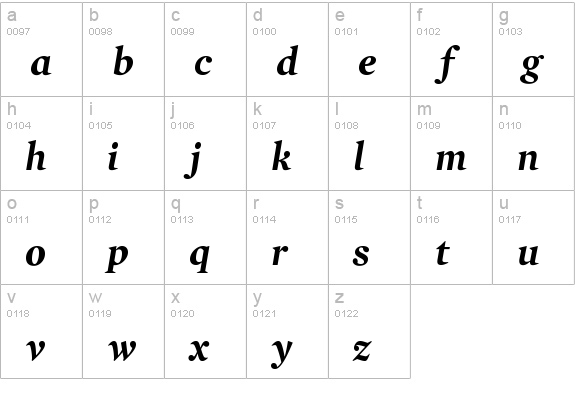
Mercury Display Bold Italic Font Details
Mercury Display Bold Italic is a strong, high-contrast, italic variant in the Mercury typeface family \xE2\x80\x94 well suited to headlines, attention-grabbing titles, and strong calls-to-action.
Mercury Display Bold Italic font is a striking and sophisticated typeface that exudes elegance and modernity. Its bold and italic design adds a touch of flair and style to any project, making it perfect for headlines, titles, and branding materials. The sharp angles and clean lines of this font give it a sleek and professional look that is sure to make a statement. And the best part? Mercury Display Bold Italic font is **free** to download at FontsMarket.com! Whether you're a designer looking to add a touch of class to your designs or a business owner in need of a fresh and contemporary font for your marketing materials, Mercury Display Bold Italic font is the perfect choice. Download it today and elevate your projects with this stunning typeface.